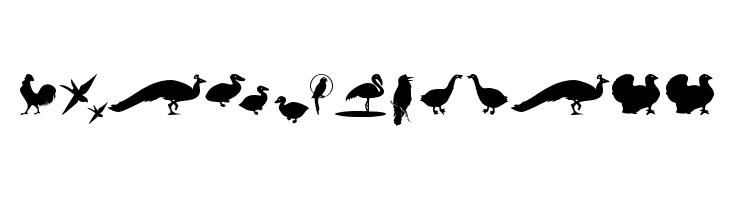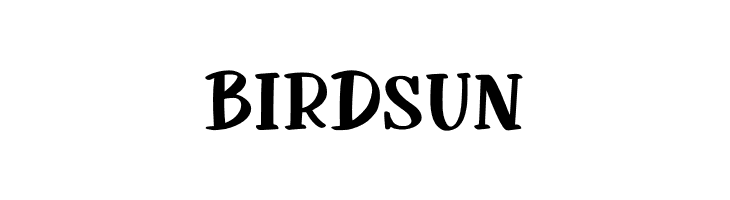
( Fonts by FatmaStudio )
A playful, bold handwritten font with a dynamic and lively style.
A whimsical, bird-themed decorative font with playful avian elements.
A playful, bird-themed decorative font with each character designed as a unique avian figure.
Decorative bird-themed symbols with intricate designs in circular frames.
( Fonts by Fachran Heit )
A bold, decorative font with playful feather-like accents on each character.
An elegant and flowing script font with graceful curves and loops.
( Fonts by www.dcoxy.com )
A playful, bold font with rounded, bubbly characters perfect for fun and creative projects.
A playful, bold font with rounded, bubbly characters perfect for fun designs.
A playful, bold font with rounded edges and a bubbly appearance.